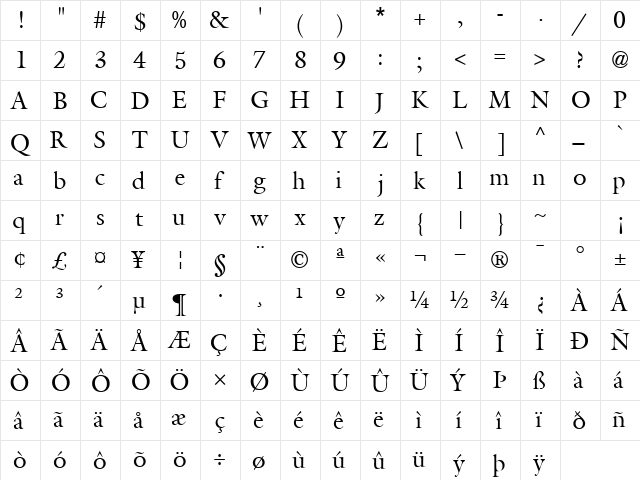
AcanthusSSK Regular
Design Context for AcanthusSSK Typeface
AcanthusSSK offers clean, dependable letterforms without strong stylistic allegiance, making it a practical choice for designers who need flexibility.